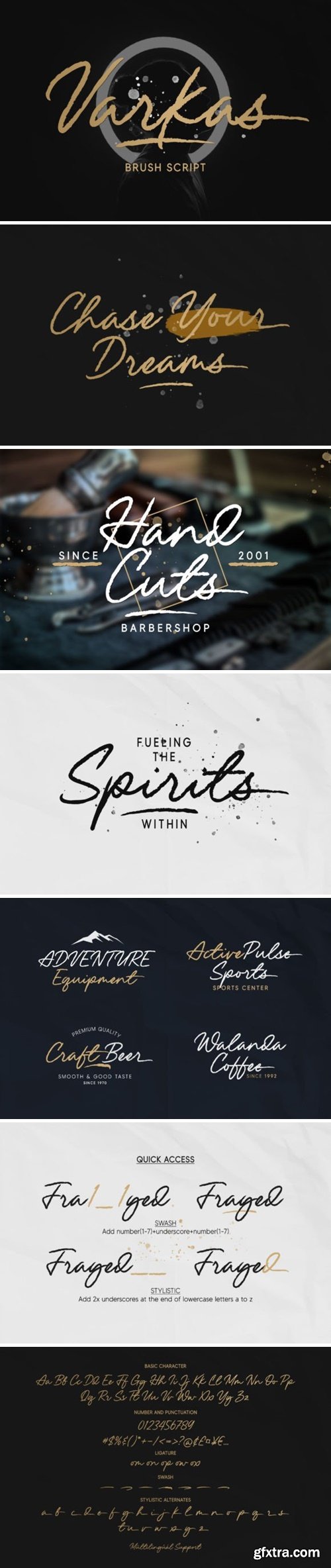
沃克斯字体
Varkas is an artistic brush script font. With natural hand strokes, this font will add a personal and attractive touch to your design projects. “Varkas” is suitable for various types of projects, such as titles, logos, labels, branding, posters, packaging design, and much more. This font is PUA encoded which means you can access all of the amazing glyphs and ligatures with ease!